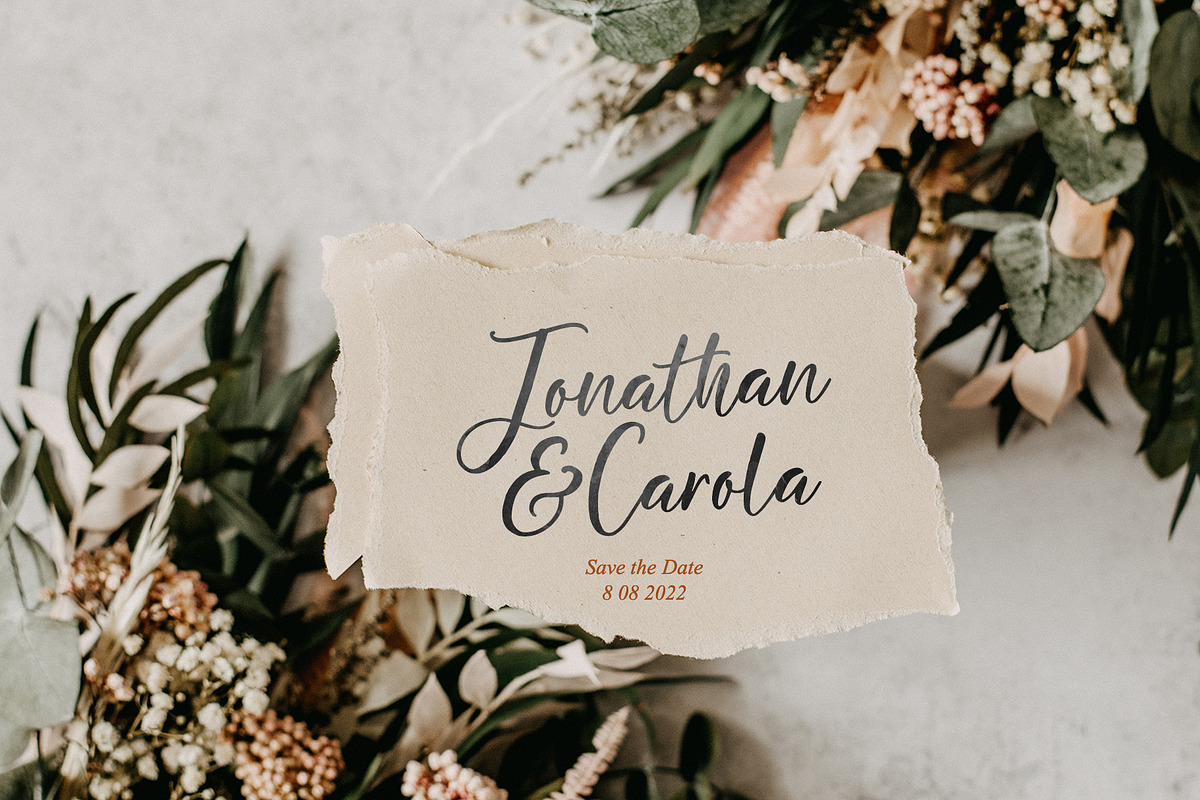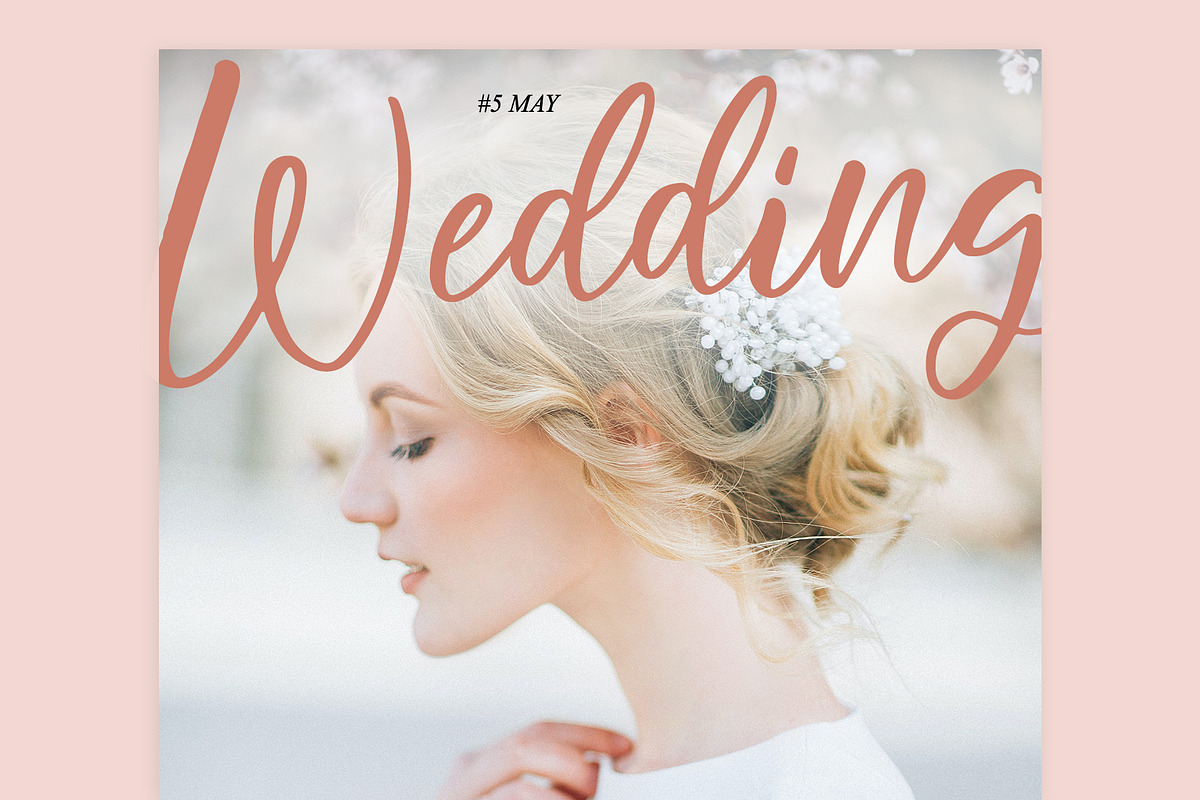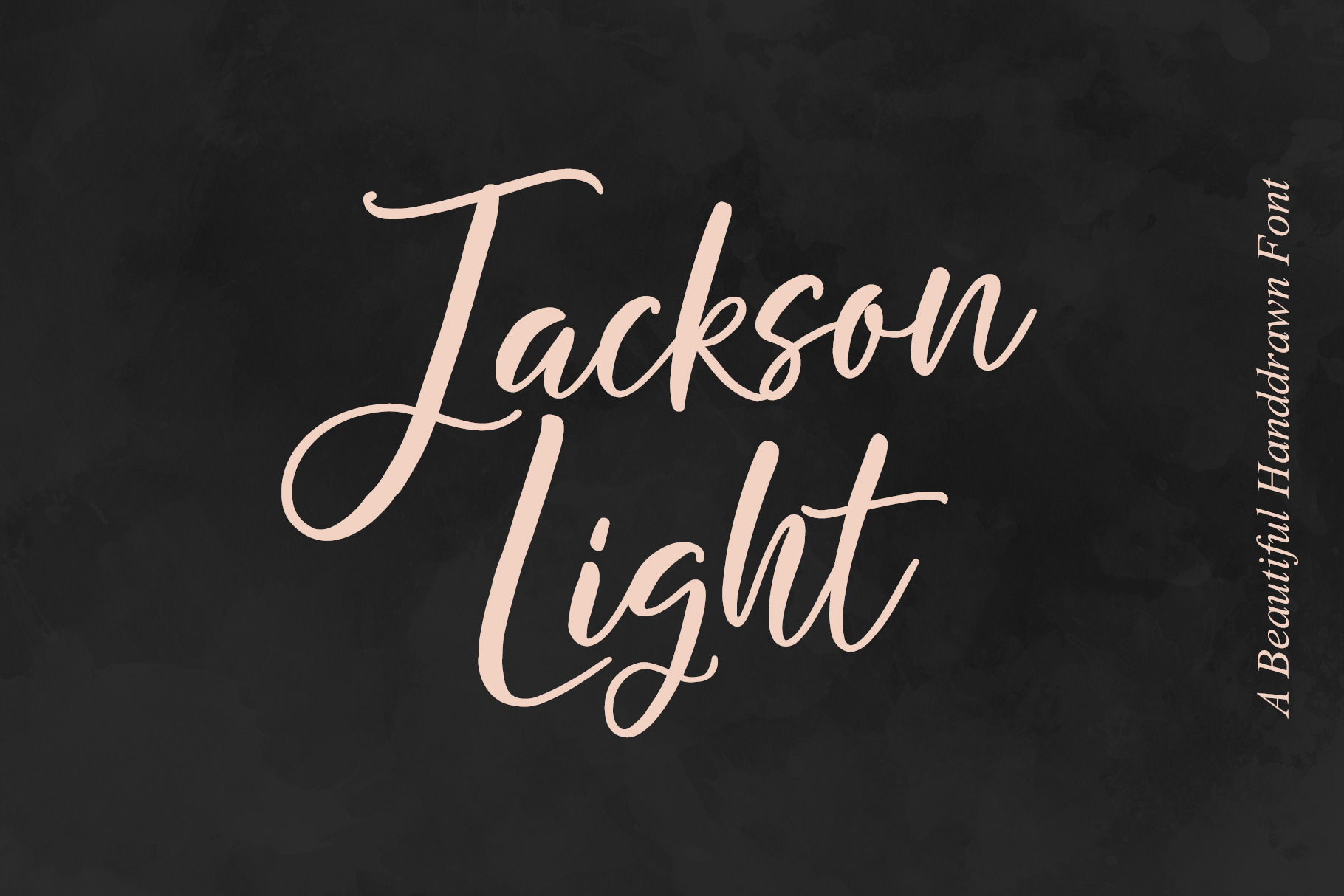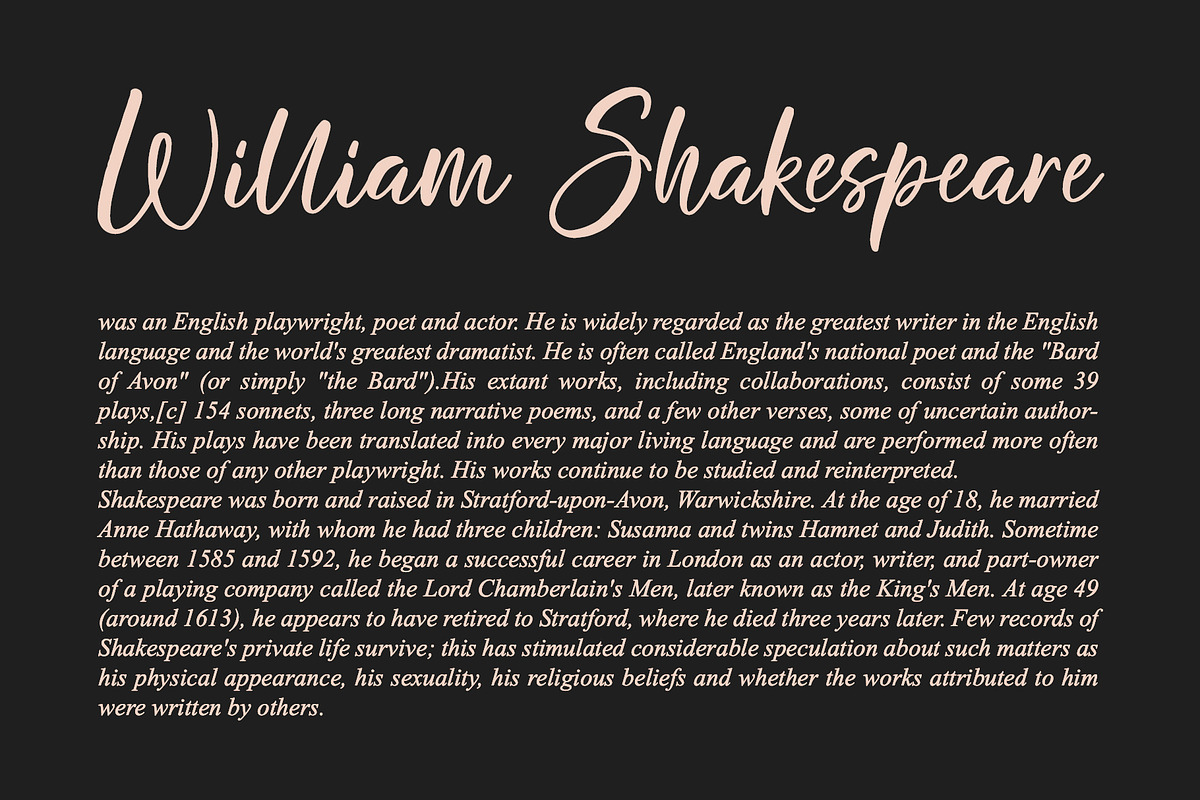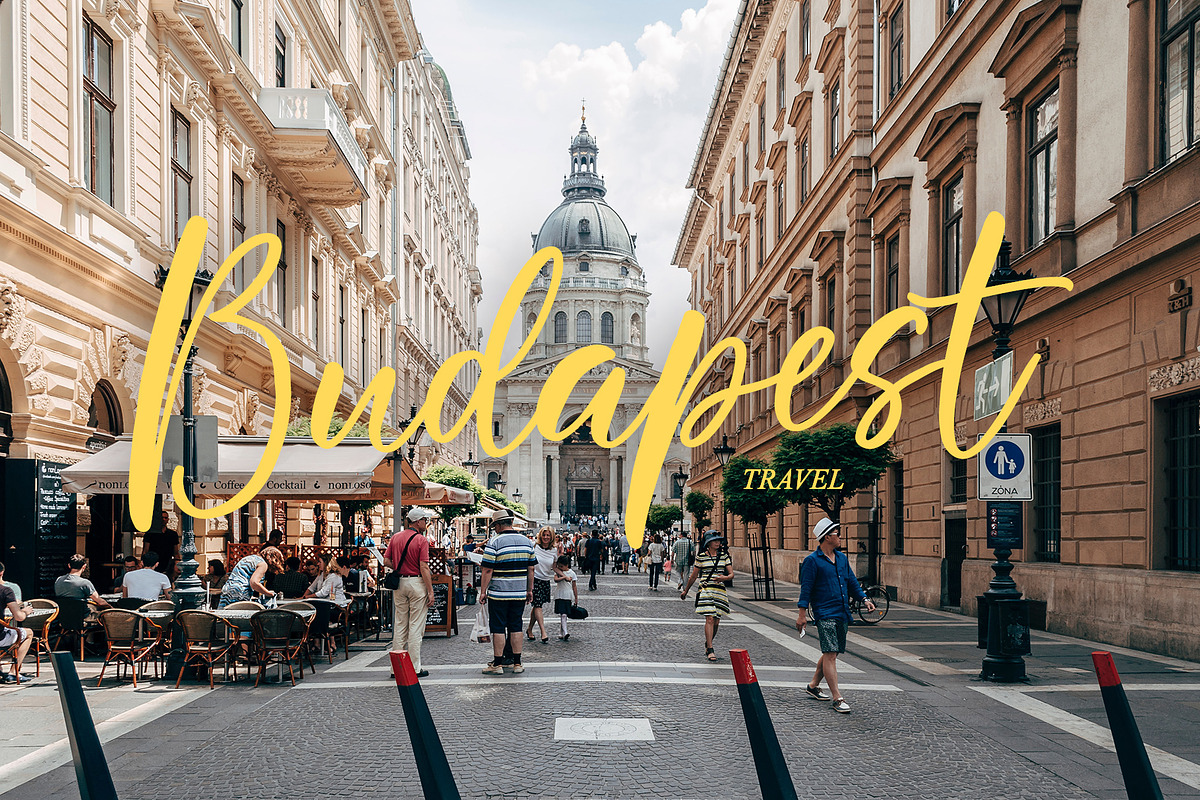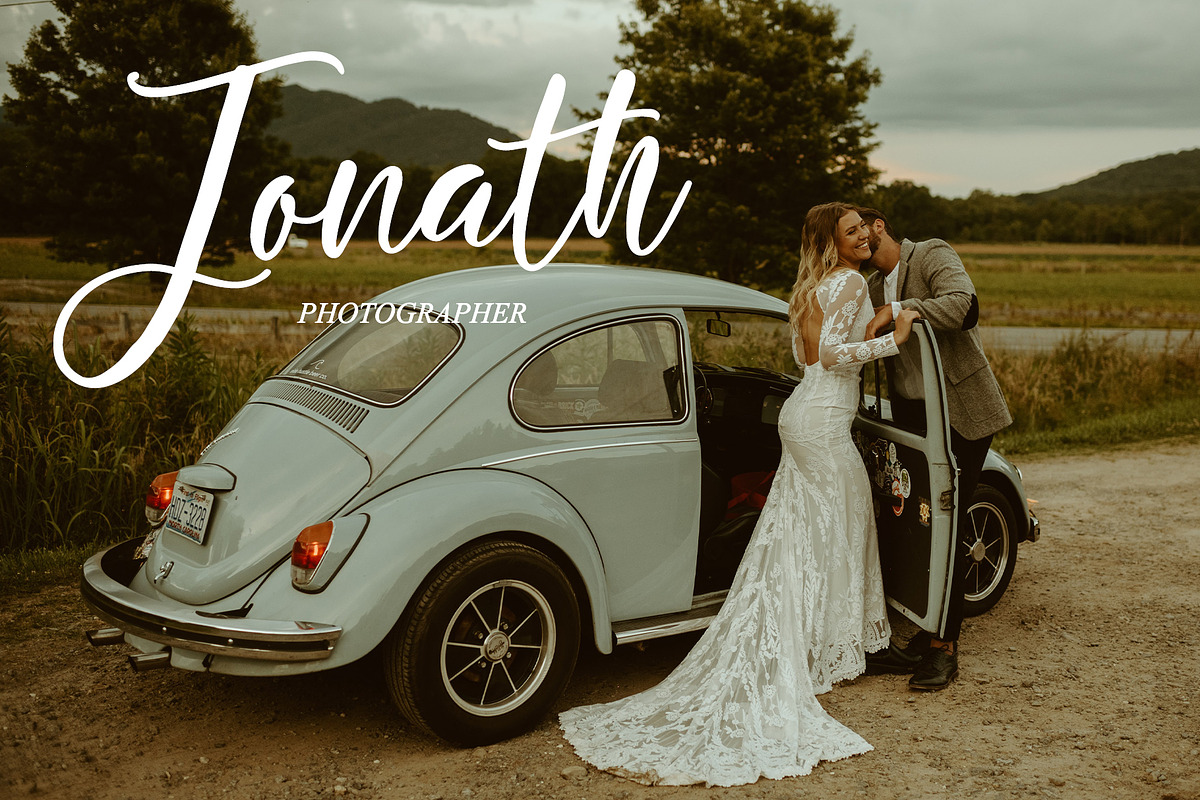
Jackson Light handwritten font
Jackson Light is a cute handwritten font perfect for headings, flyer, greeting cards, product packaging, book cover, printed quotes, logotype, apparel design, album covers, etc., or just adding a handwritten touch to any project!
Font is an open type with clean shapes and precise kerning. It includes ligatures encoded by the PUA Language support: All European languages